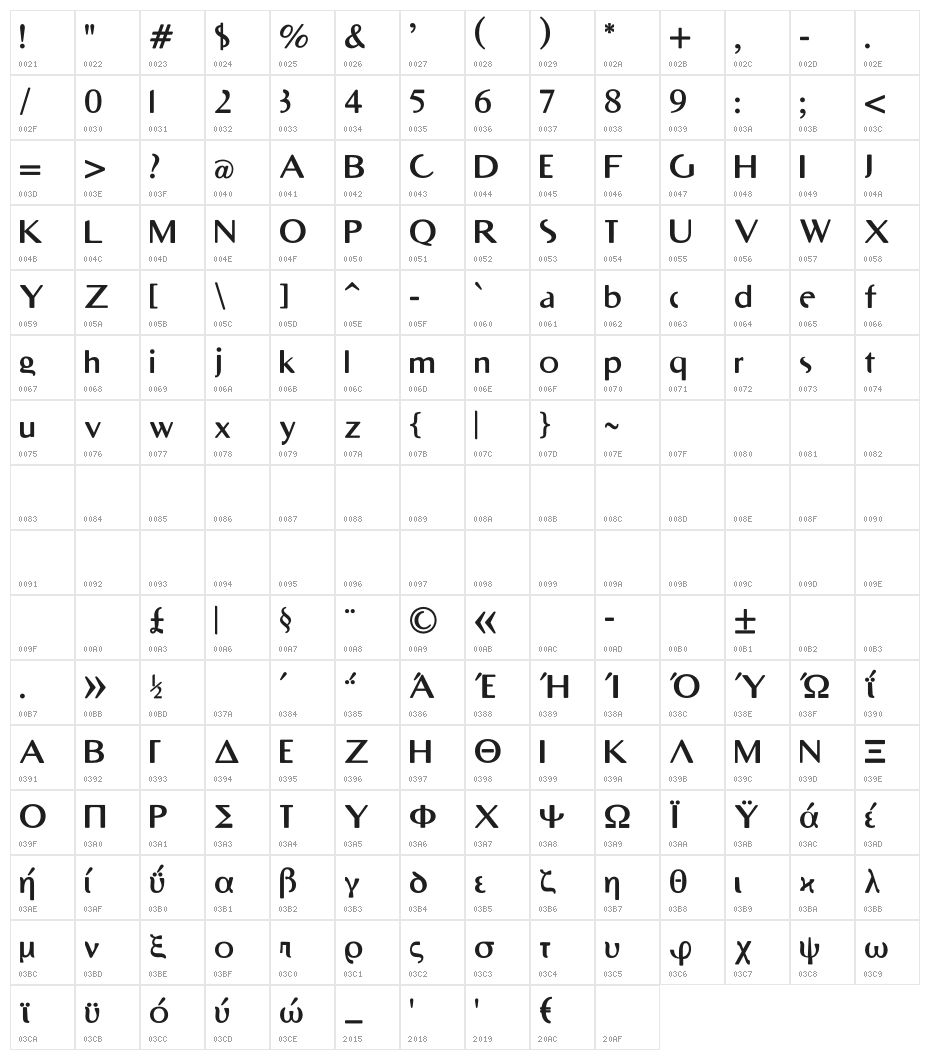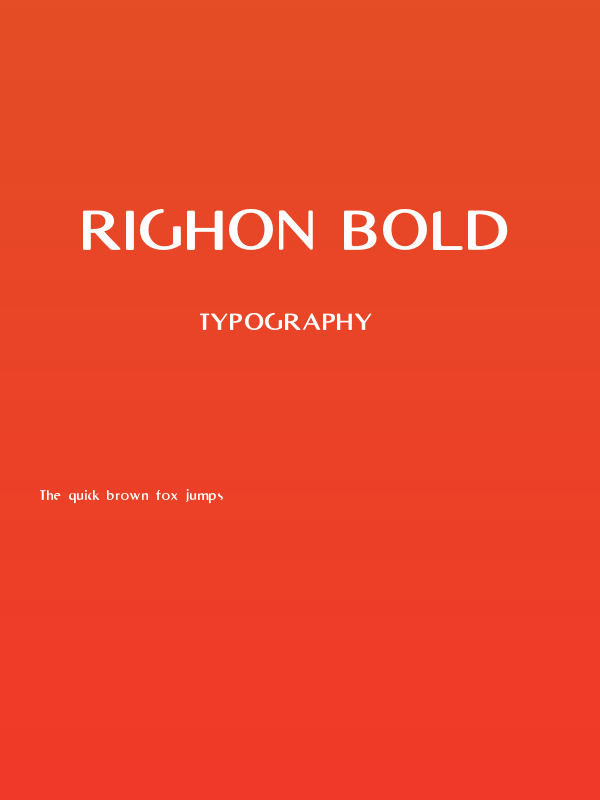
RighOn Bold Font
RighOn Bold Description
This font features a bold and modern design with clean, geometric lines and a slightly condensed appearance. The uppercase letters are uniform in height, while the lowercase letters maintain a consistent baseline with distinctive curves, particularly noticeable in characters like 'g' and 's'. The numerals are well-proportioned, ensuring readability. Special characters are designed to complement the overall style, maintaining the bold and clear aesthetic. This font is versatile, suitable for both digital and print media, offering a contemporary look that is both professional and approachable.